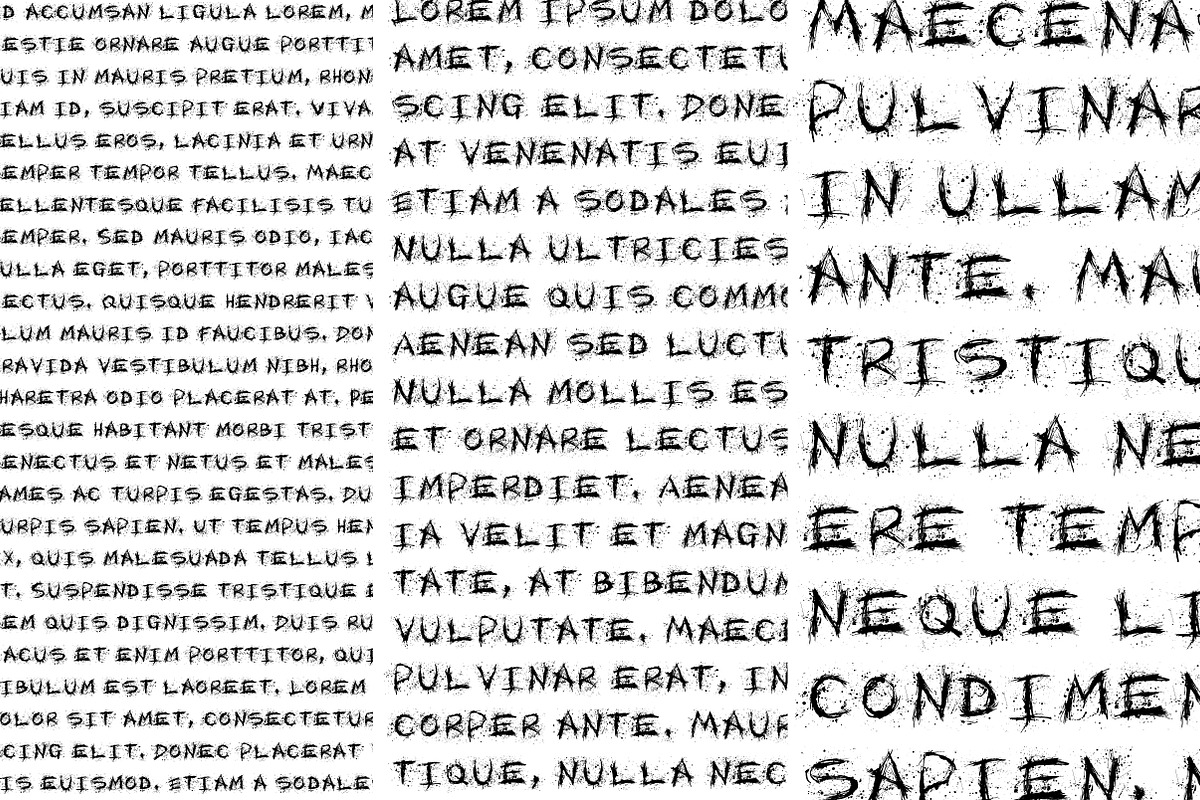
Isaiah 53 Ink Splatter Typeface
Isaiah 53 Ink Splatter Typeface by Thomas Ramey Designs is a font selected for branding, posters, packaging, typography.
- Each letterform contains large amount of detail which will look good when blown up.
- Each letter was created individually and is had a unique uppercase and lowercase letter.
Why Isaiah 53 Ink Splatter Typeface is worth a look
Isaiah 53 Ink Splatter Typeface by Thomas Ramey Designs fits naturally into Branding, posters, packaging, typography.